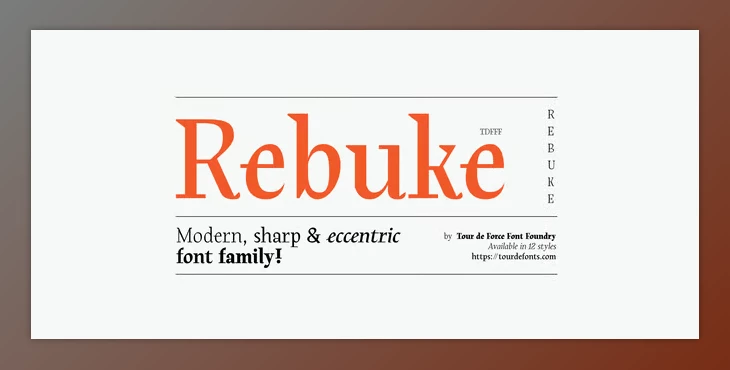
The Rebuke font collection features a modern serif typeface with sophistication and versatility through its 12 styles, which include six weights and their italics. This typeface works differently because of how all the design elements come together. The lower serifs are Didone inspired, the upper triangular straight serifs are upper Didone, plus extended connected letter serifs. The typeface also includes calligraphy with contemporary vintage accents, making it stand out even more.
Rebuke has been proven to be an excellent font for contemporary editorial design because of its clarity and readability, even in smaller sizes. Its structural balance allows readers to flow into the following sentence effortlessly, so it is excellent for continuous text reading. OpenType’s Initials feature also allows project personalization, which contributes to the customization of design, too. In addition, Rebuke distinguishes itself by combining tradition and modernity, which makes it ideal for both print and digital media, giving value to designers looking for style with functionality in a typeface.